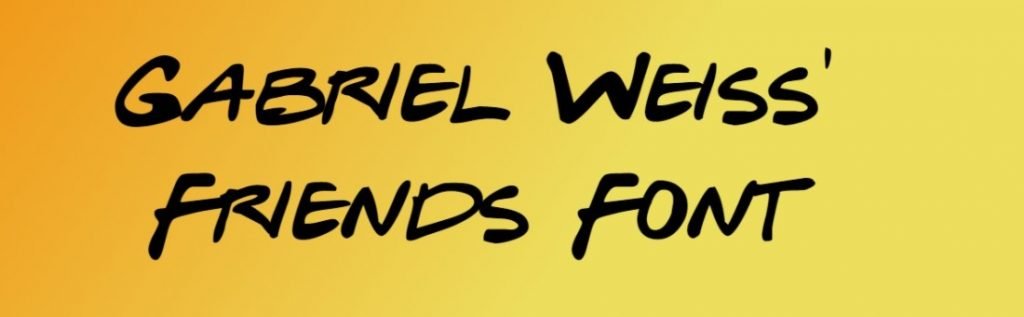
Are you a graphic designer looking for the perfect font for your projects? Look no further than the Gabriel Weiss’ Friends Font This unique typeface, inspired by friends and created by Gabriel Weiss, is the ideal choice for adding a fun and personal touch to your designs. Explore the world of this font and elevate your projects to the next level with Gabriel Weiss’ Friends Font.
This typeface comes with 136 unique glyphs and also with 141 defined characters. The version we are providing contains both the uppercase and lowercase letters that also some special characters.
This is a Handwriting font with 141 defined characters and 136 unique glyphs.